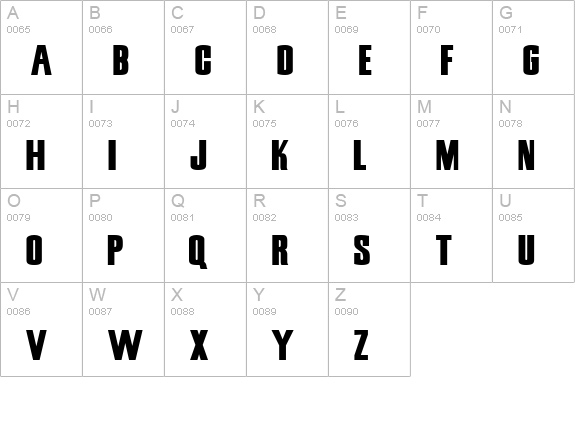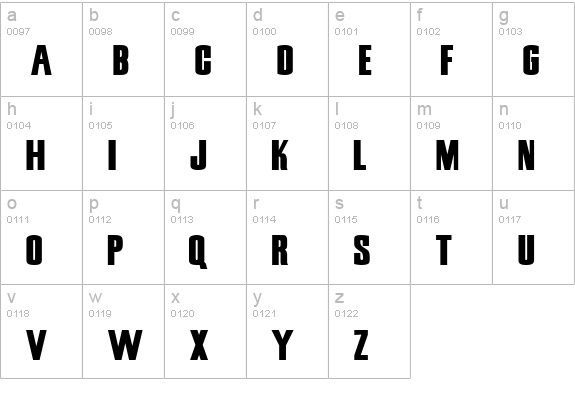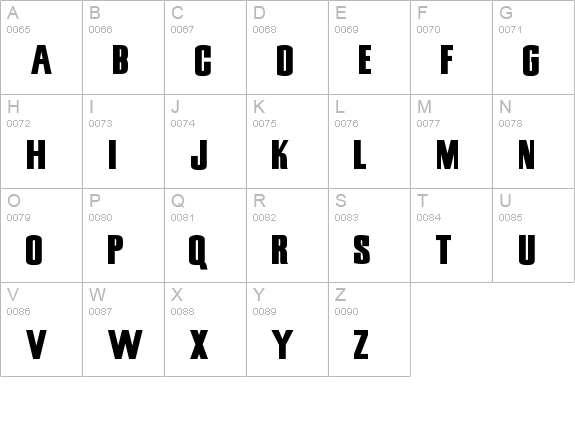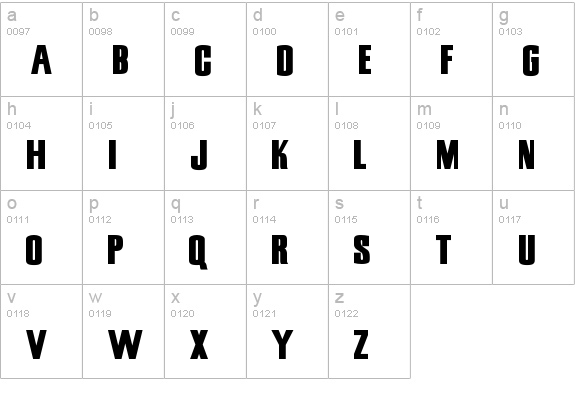
Snickers Straight Normal Font Details
Snickers Straight Normal is the standard, neutral variant in the Snickers typeface family \xE2\x80\x94 well suited to general body text, paragraphs, and standard typographic work.
Introducing Snickers Straight Normal font, a versatile typeface that exudes simplicity and elegance. This font is perfect for adding a touch of sophistication to any design project. With its clean lines and balanced letterforms, Snickers Straight Normal font effortlessly captures attention and communicates your message with clarity. Whether you're working on a logo, branding, or any other creative endeavor, Snickers Straight Normal font offers endless possibilities. Its timeless design ensures that your work will stand the test of time and remain relevant for years to come. What sets Snickers Straight Normal font apart is not just its impeccable design, but also its accessibility. This font is freely available to download at FontsMarket.com, making it easily accessible to designers, artists, and enthusiasts alike. With just a few clicks, you can enhance your projects with the beauty of Snickers Straight Normal font, without any hassle or restrictions. Embrace the versatility and simplicity of Snickers Straight Normal font and elevate your designs to new heights. Whether you're looking to create stunning advertisements, captivating headlines, or eye-catching packaging, this font has got you covered. Its clean and legible appearance ensures that your message is delivered effectively, leaving a lasting impression on your audience. With Snickers Straight Normal font, you have the freedom to express your creativity and bring your vision to life. Download this exceptional typeface today from FontsMarket.com and let your designs shine with elegance and professionalism.